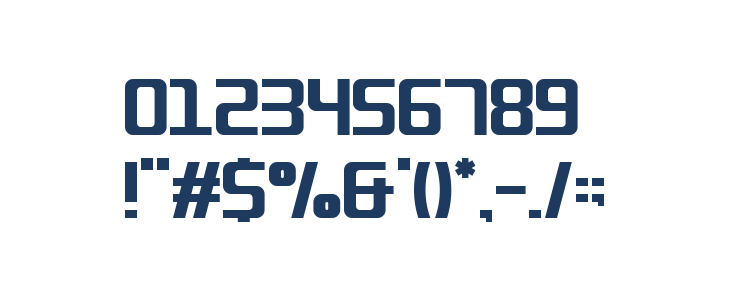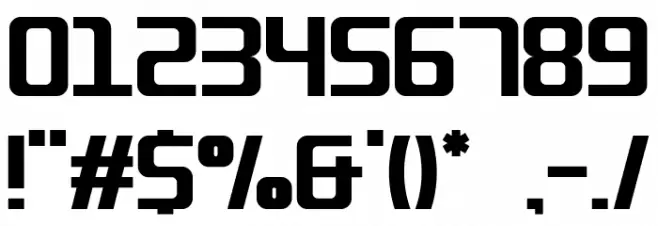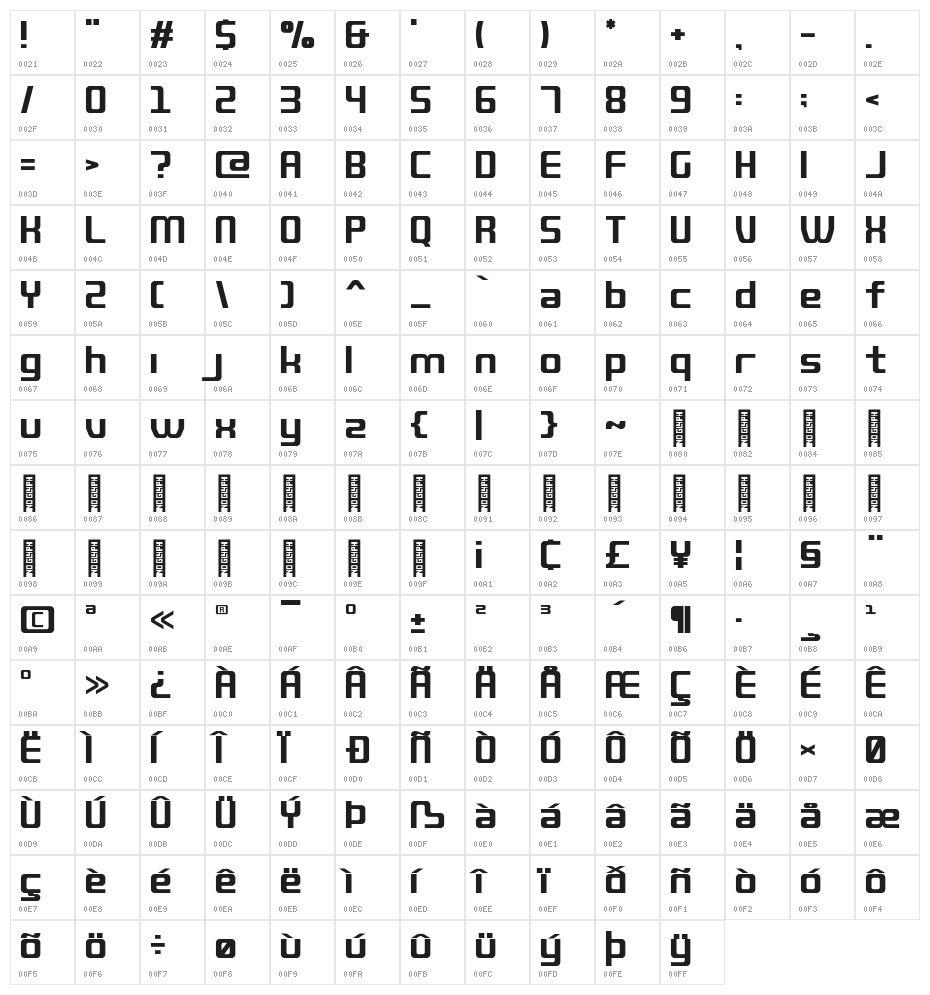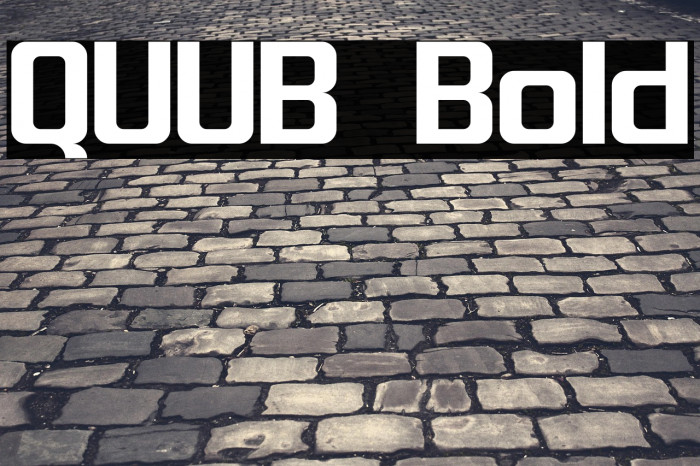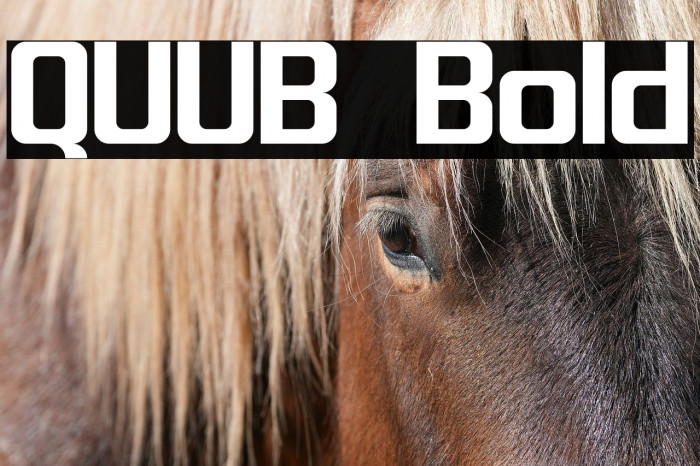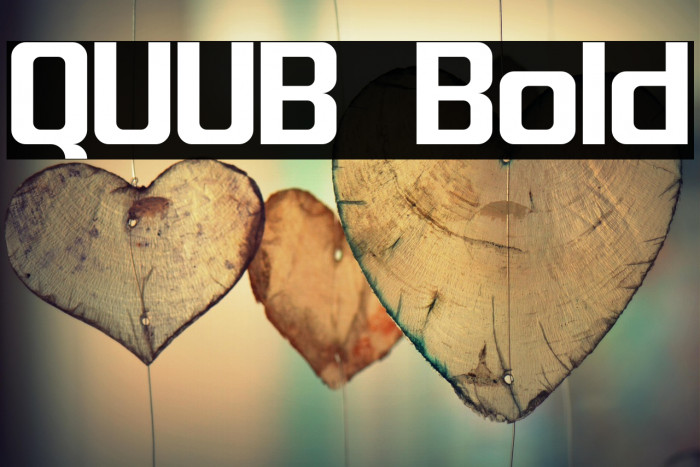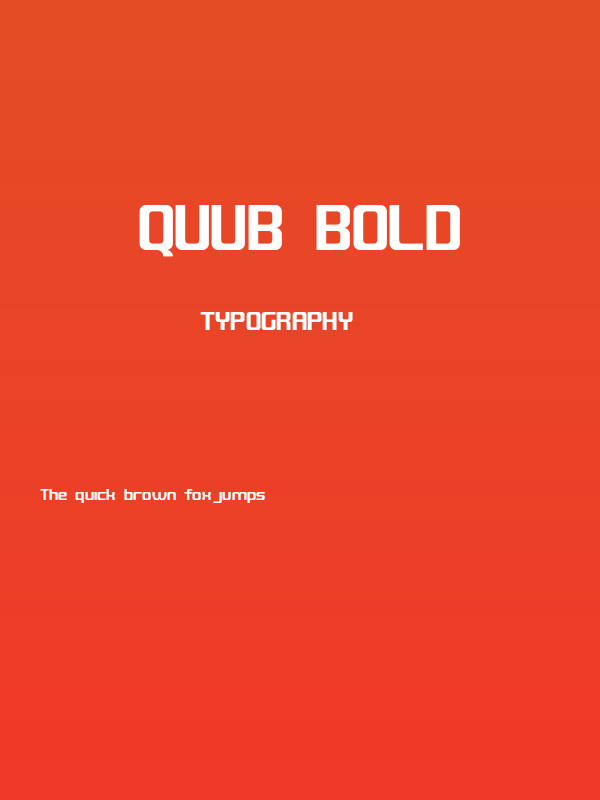
QUUB Bold Font
QUUB Bold Description
This font features a bold, geometric style with a modern and clean appearance. The characters are constructed with uniform stroke widths, giving it a monospaced feel, although it is not strictly monospaced. The uppercase letters are blocky and robust, while the lowercase letters maintain a similar structure, ensuring consistency across the typeface. The numerals are equally bold and clear, making them highly legible. Special characters are designed to match the overall aesthetic, with a focus on simplicity and clarity. This font is ideal for projects that require a strong, contemporary look.